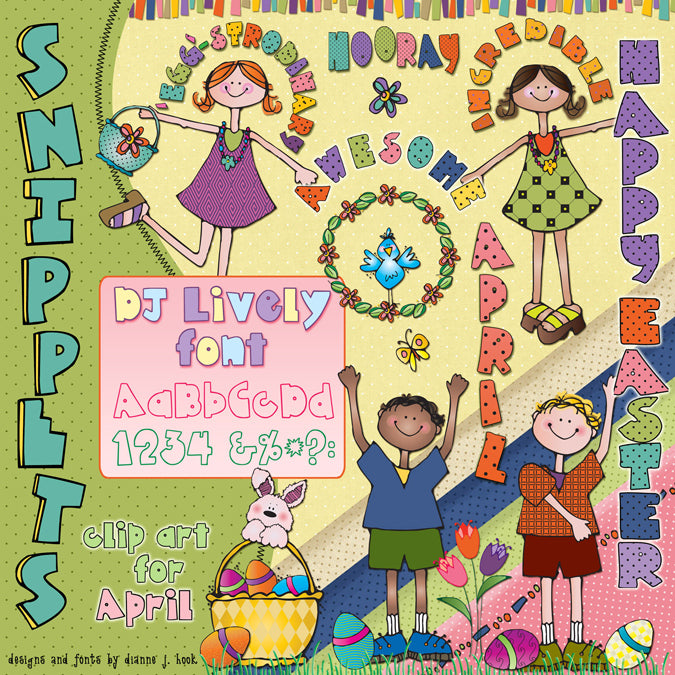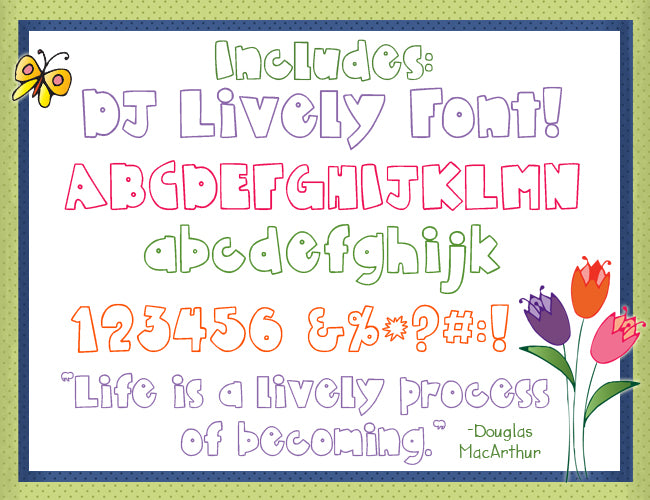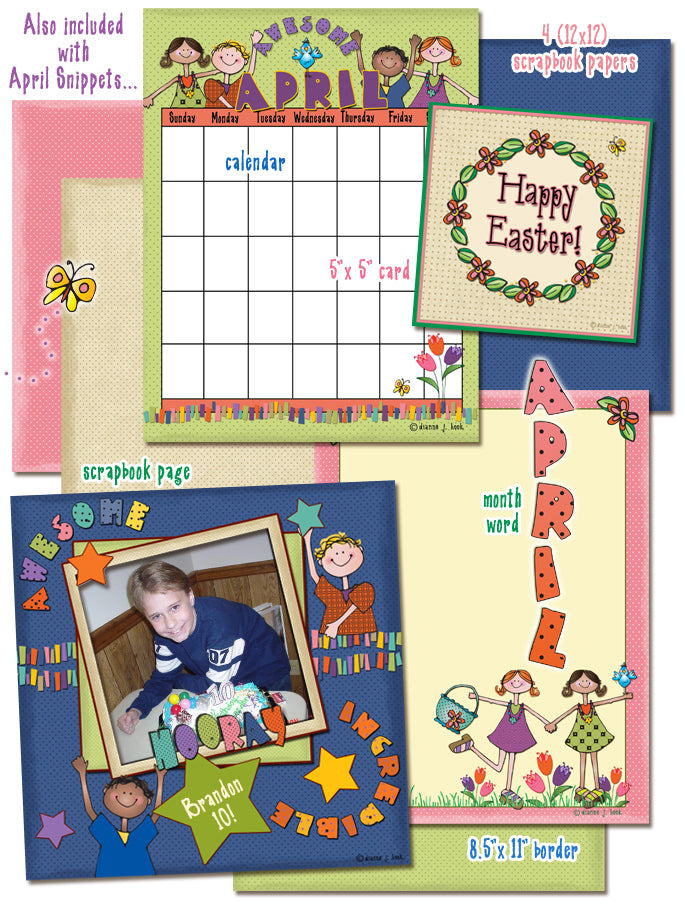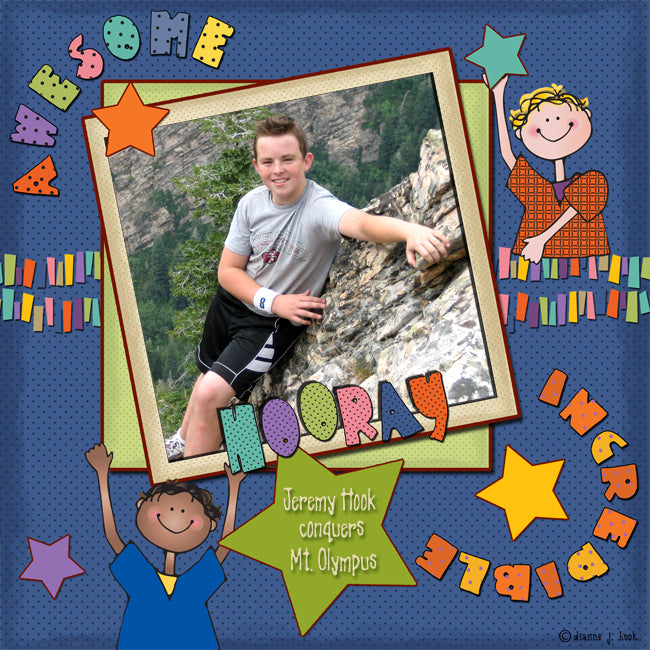
Spring Kids Clip Art Snippets, Font and Printables Kit
Snippets Spring Kids is a 'basket' full of fresh & fully coordinating smiles. This whimsical collection includes everything you need to create a smile for springtime.
• Our energetic 'DJ Lively' font
It's cute, coordinated, & super-easy to use... so you can get right to the fun part!  Perfect for April, Easter projects, seasonal celebrations, & smiles for spring. See additional images to view kit contents, font sample and project ideas. Designs by Dianne J Hook © DJ Inkers.